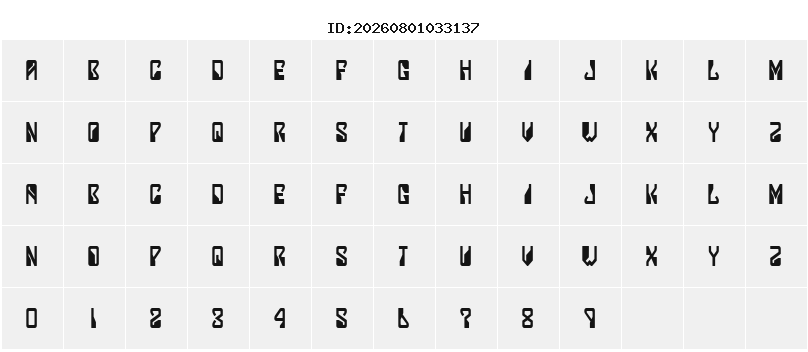
• Font Name: Lady Starlight
• Full Font Name: Lady Starlight
• Designer: Ray Larabie
About Lady Starlight.ttf
Lady Starlight.ttf is a modern, elegant sans-serif font designed for ultimate readability and visual harmony. Perfect for branding, headlines, web design, and print materials.